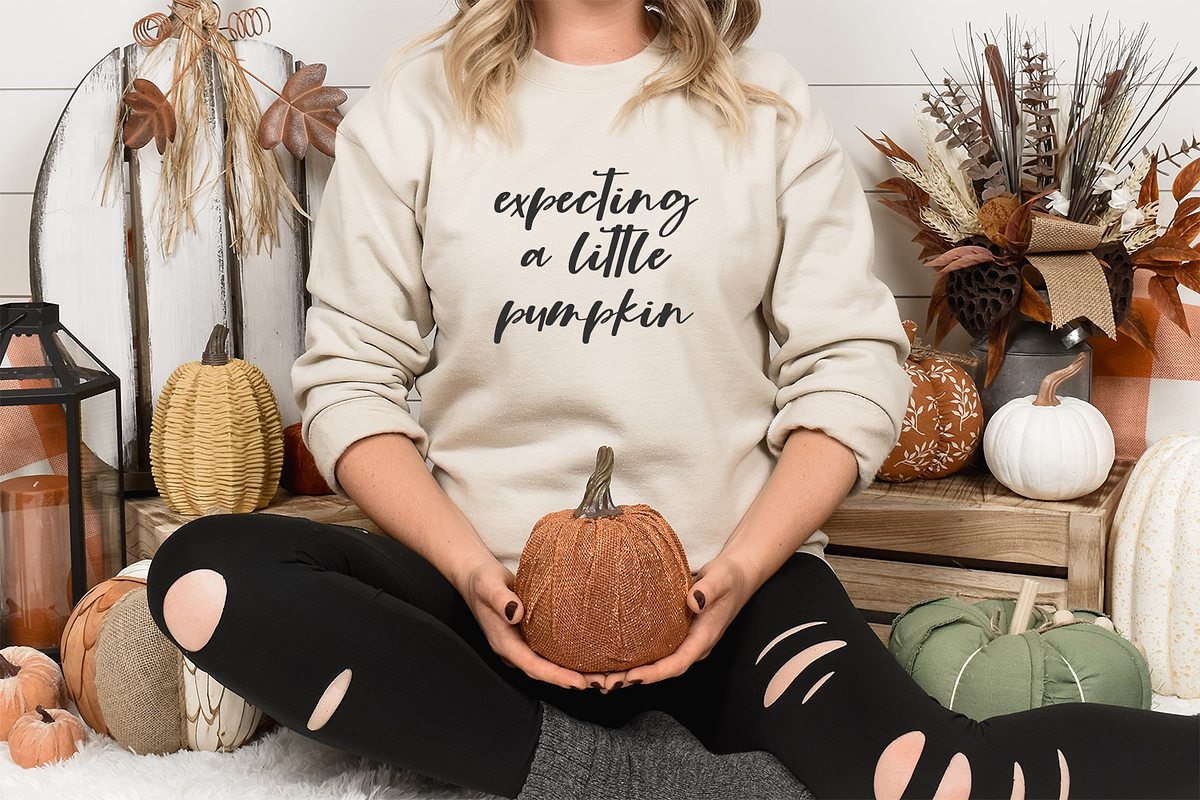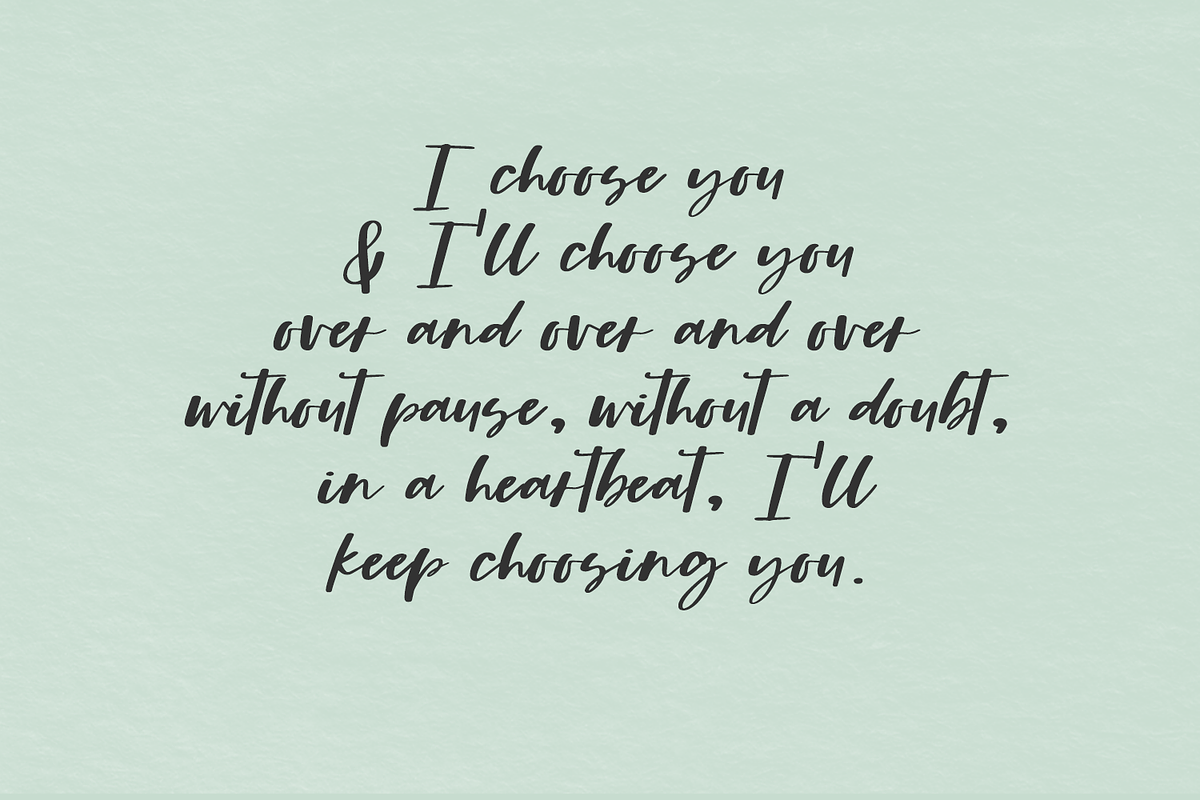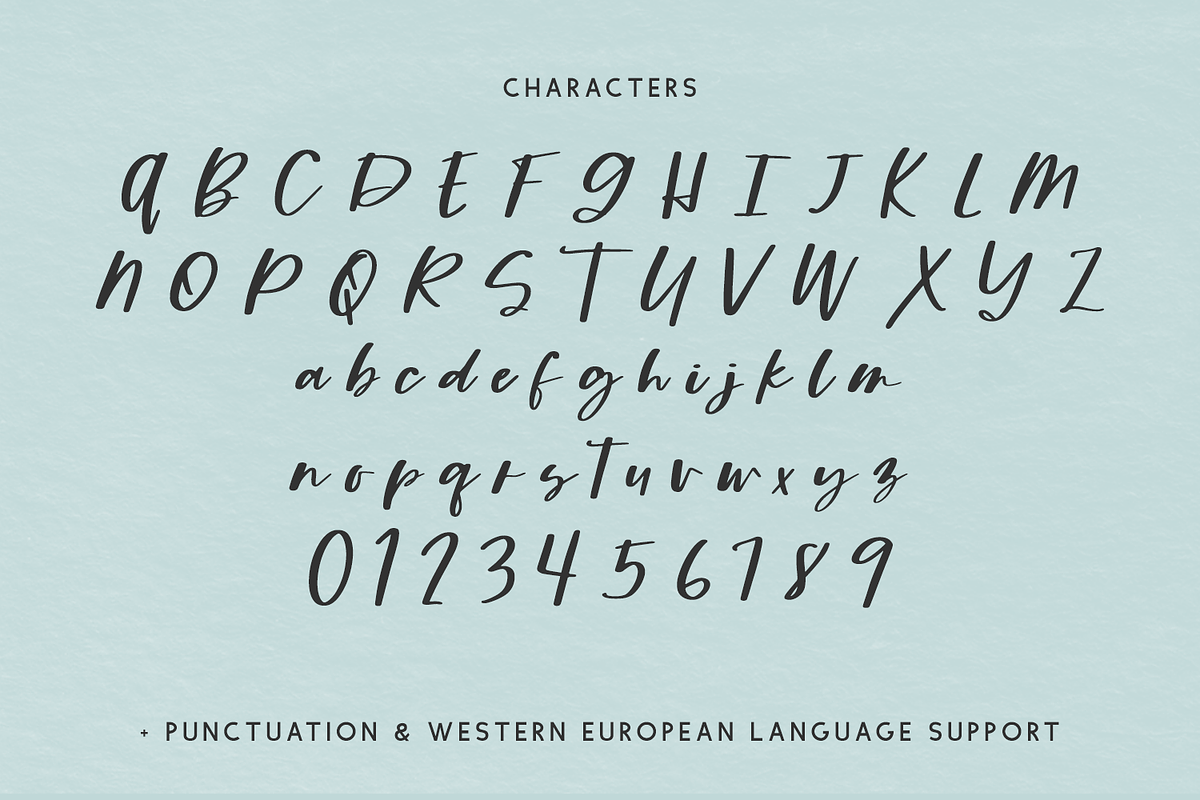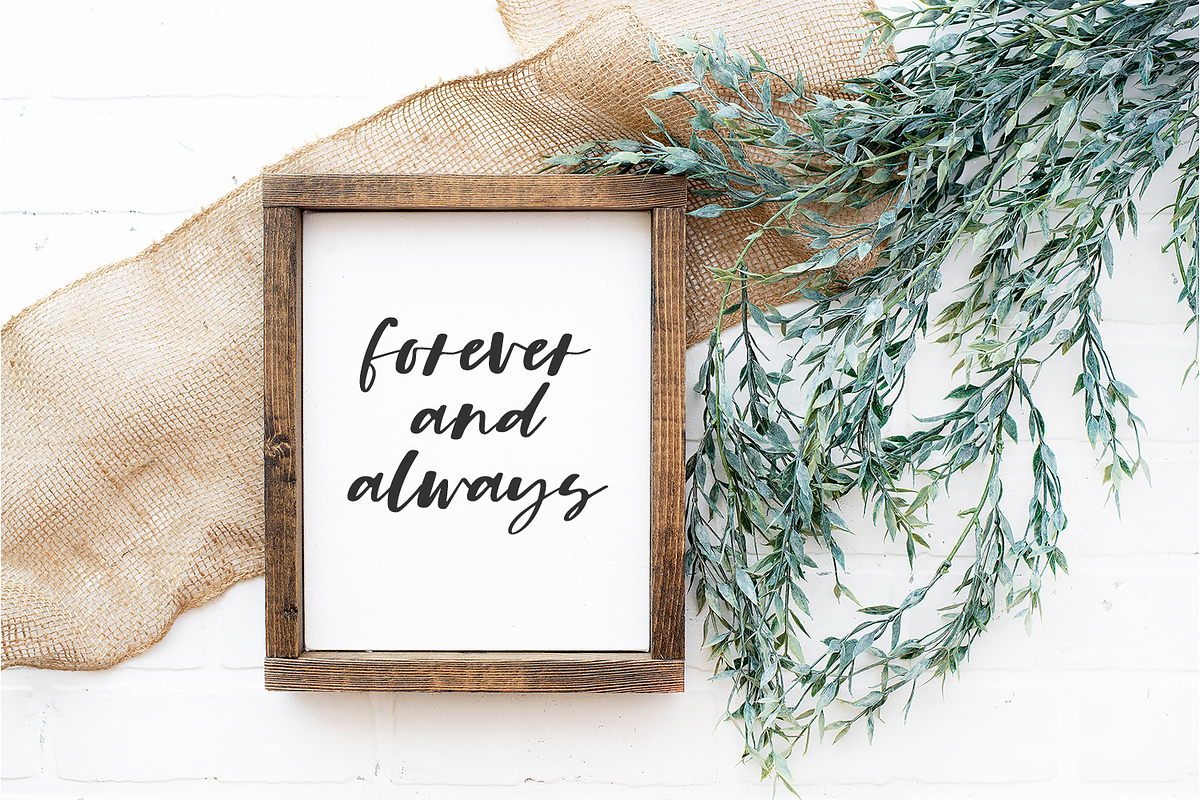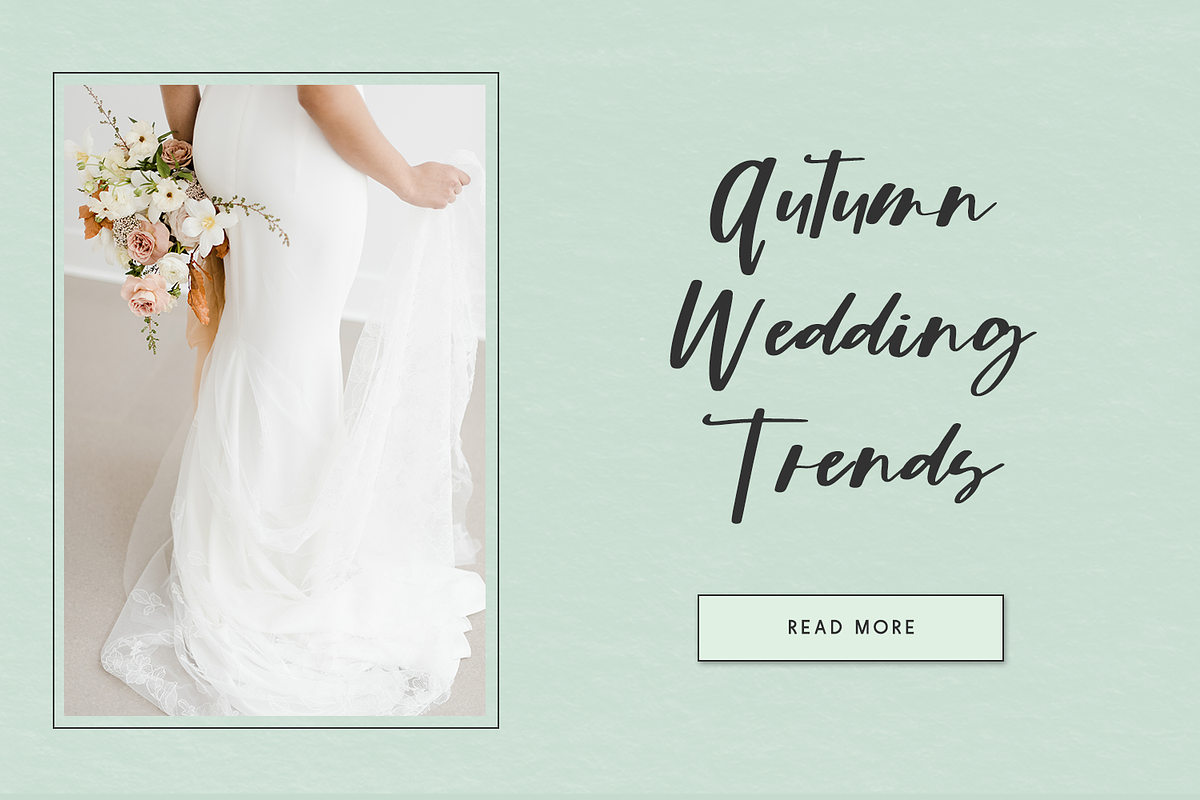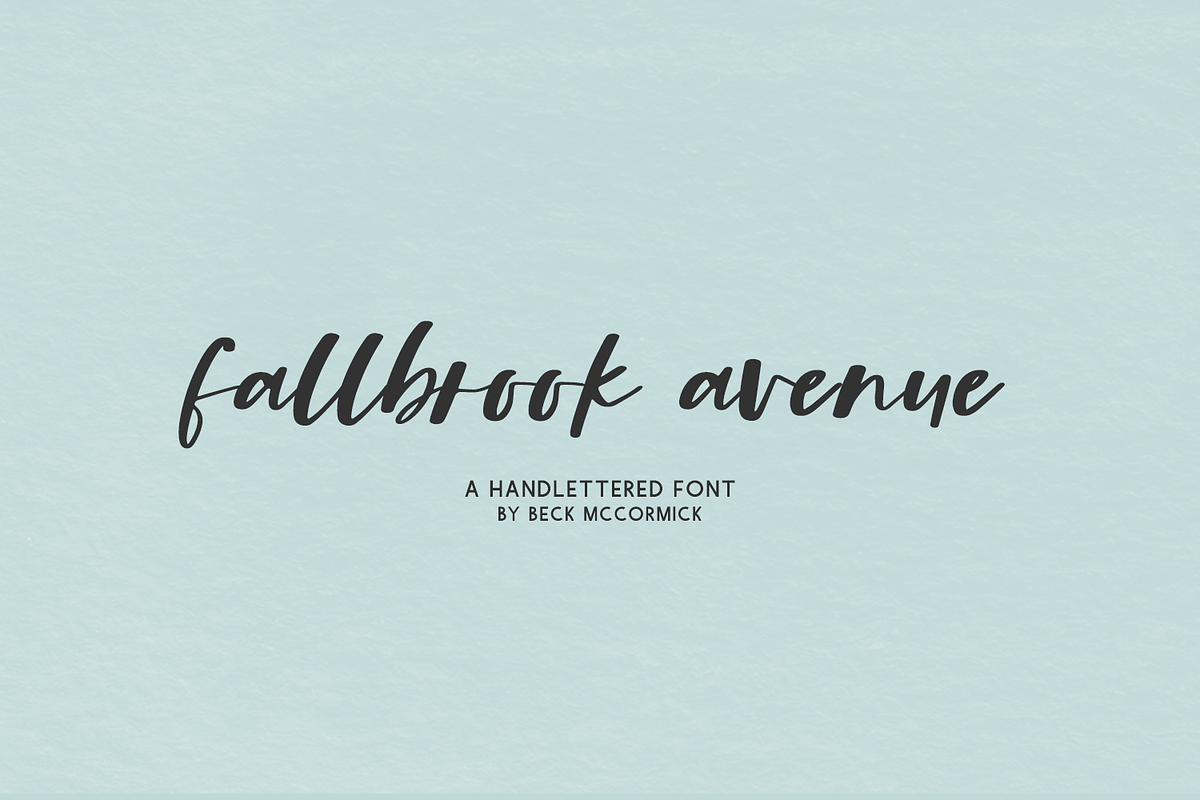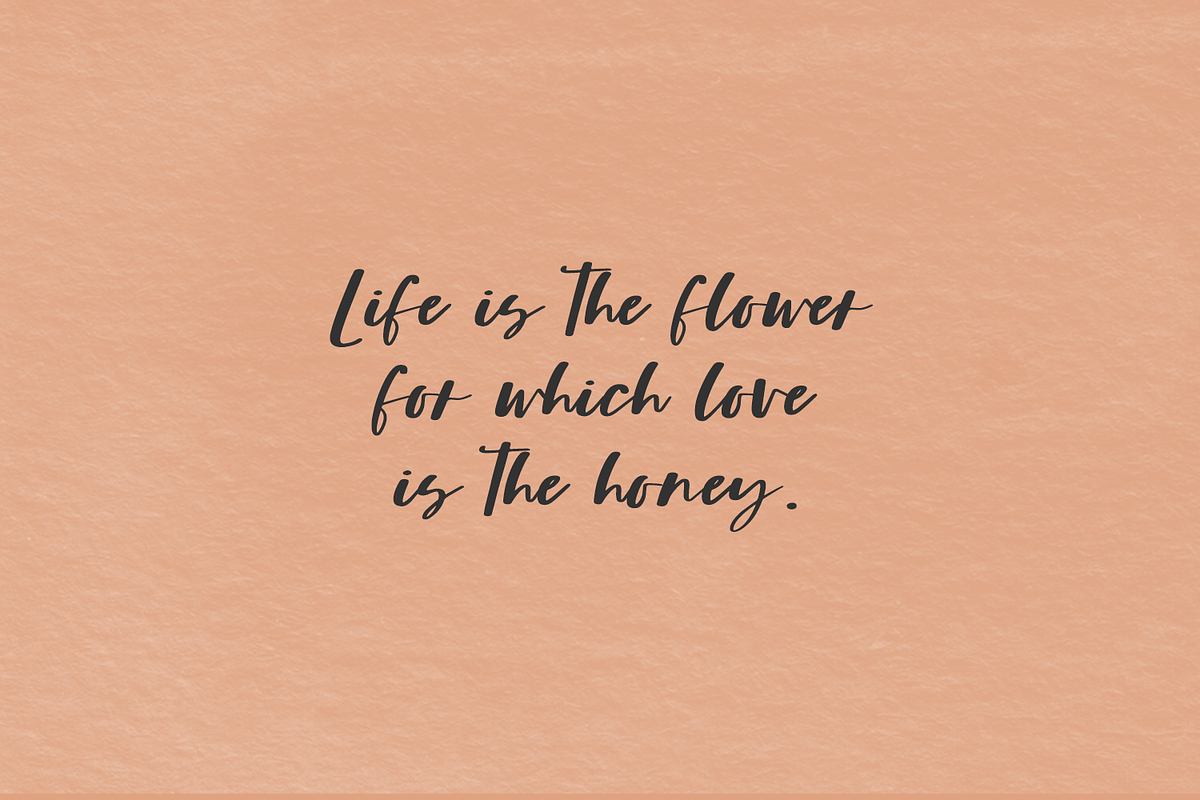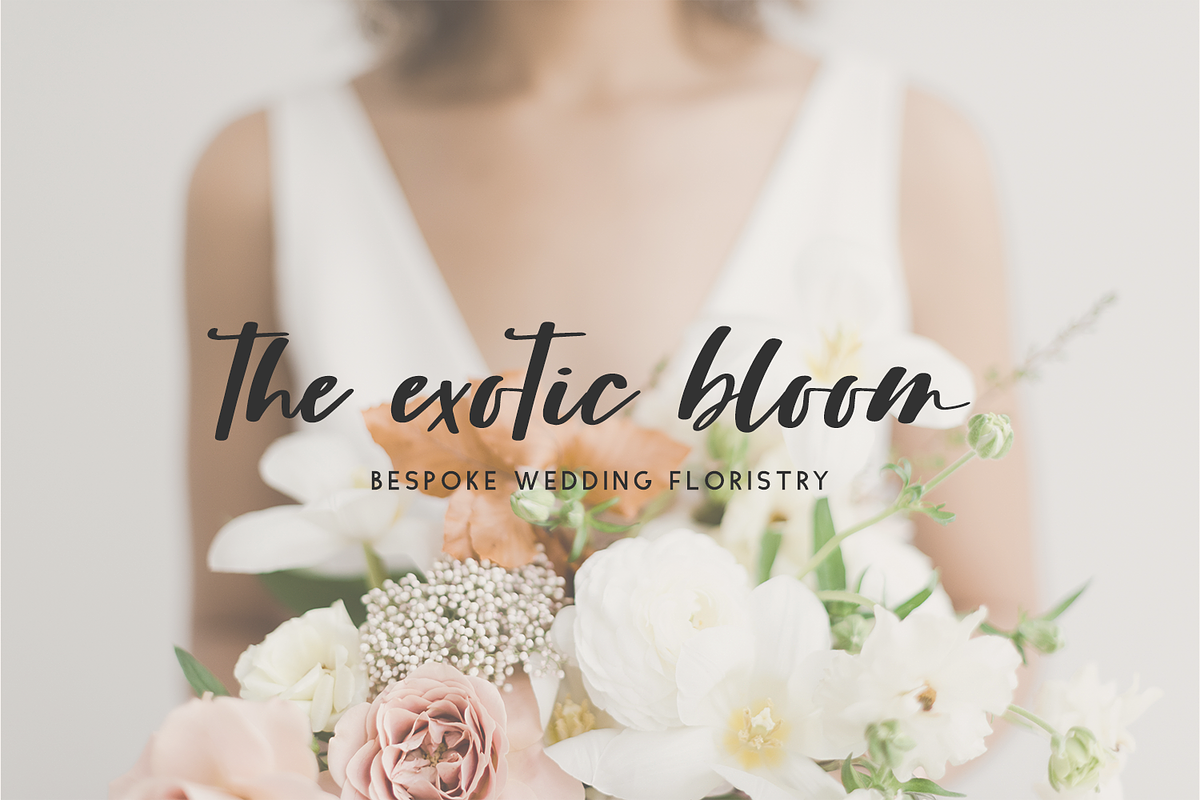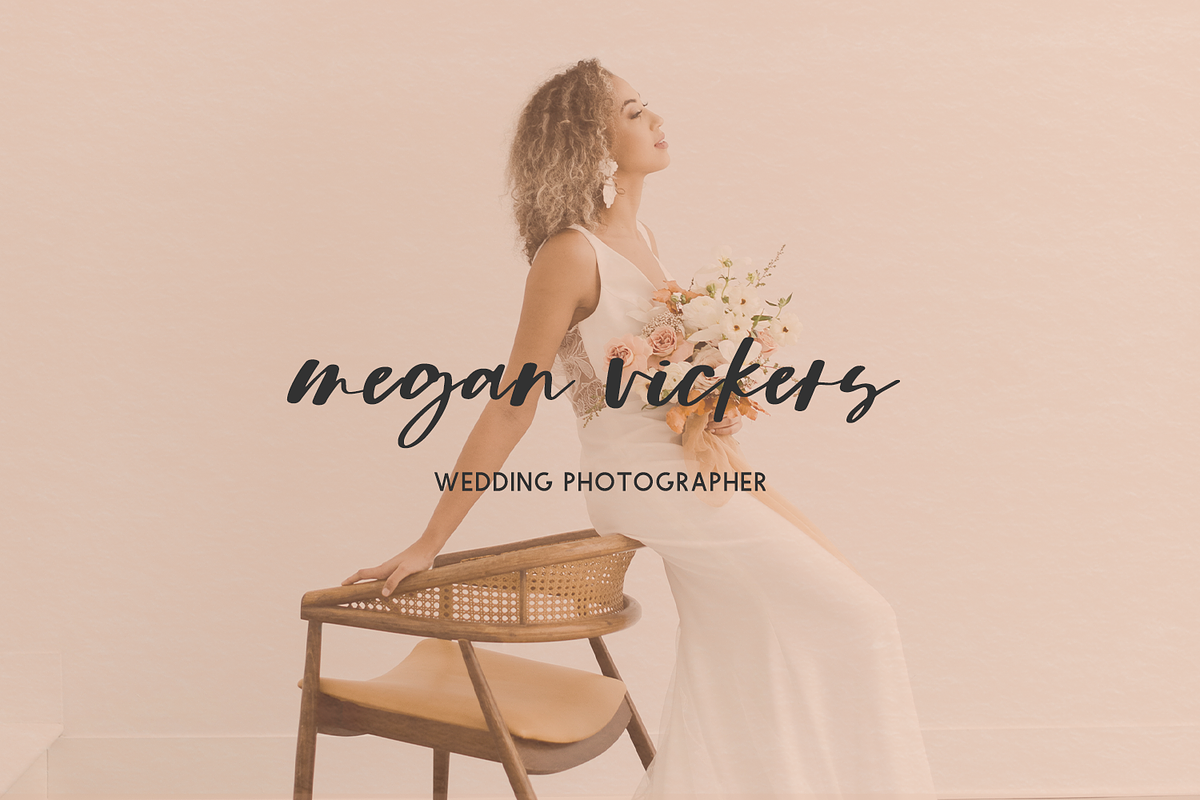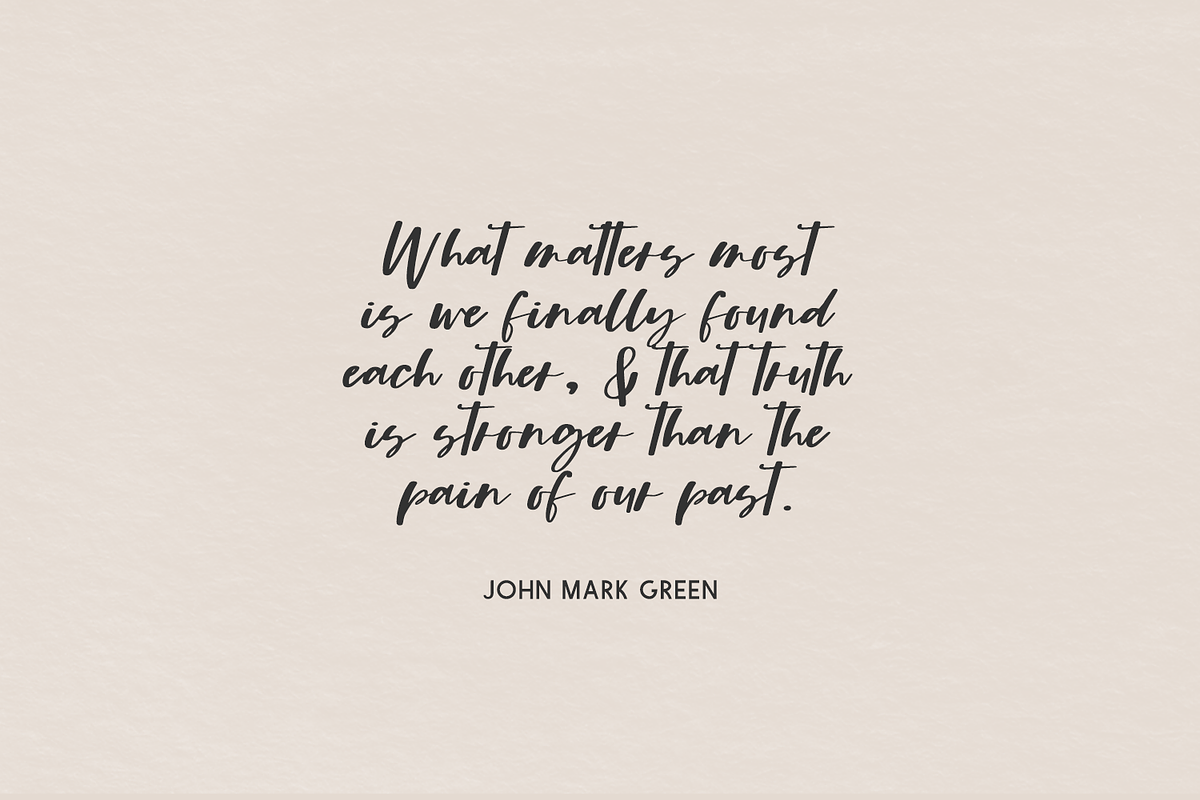
Fallbrook Avenue Script
Introducing Fallbrook Avenue, a cute handlettered modern calligraphy script.
Fallbrook Avenue is best for:
- feminine, crafty projects with your Cricut or Silhouette machine, or your SVG design business
- wedding invitations, wedding favors, or wedding decor
- farmhouse decor and crafts
- logos + branding
- digital planners & apps like Goodnotes
- website design + website accents, blog design
- clean print design, like magazines + flyers
- header elements that need handwritten touch
- quote graphics for social media
- feminine graphic tee shirt design & other apparel
Fallbrook Avenue includes:
- full upper + lowercase characters
- numbers + punctuation
- Western European Language Support